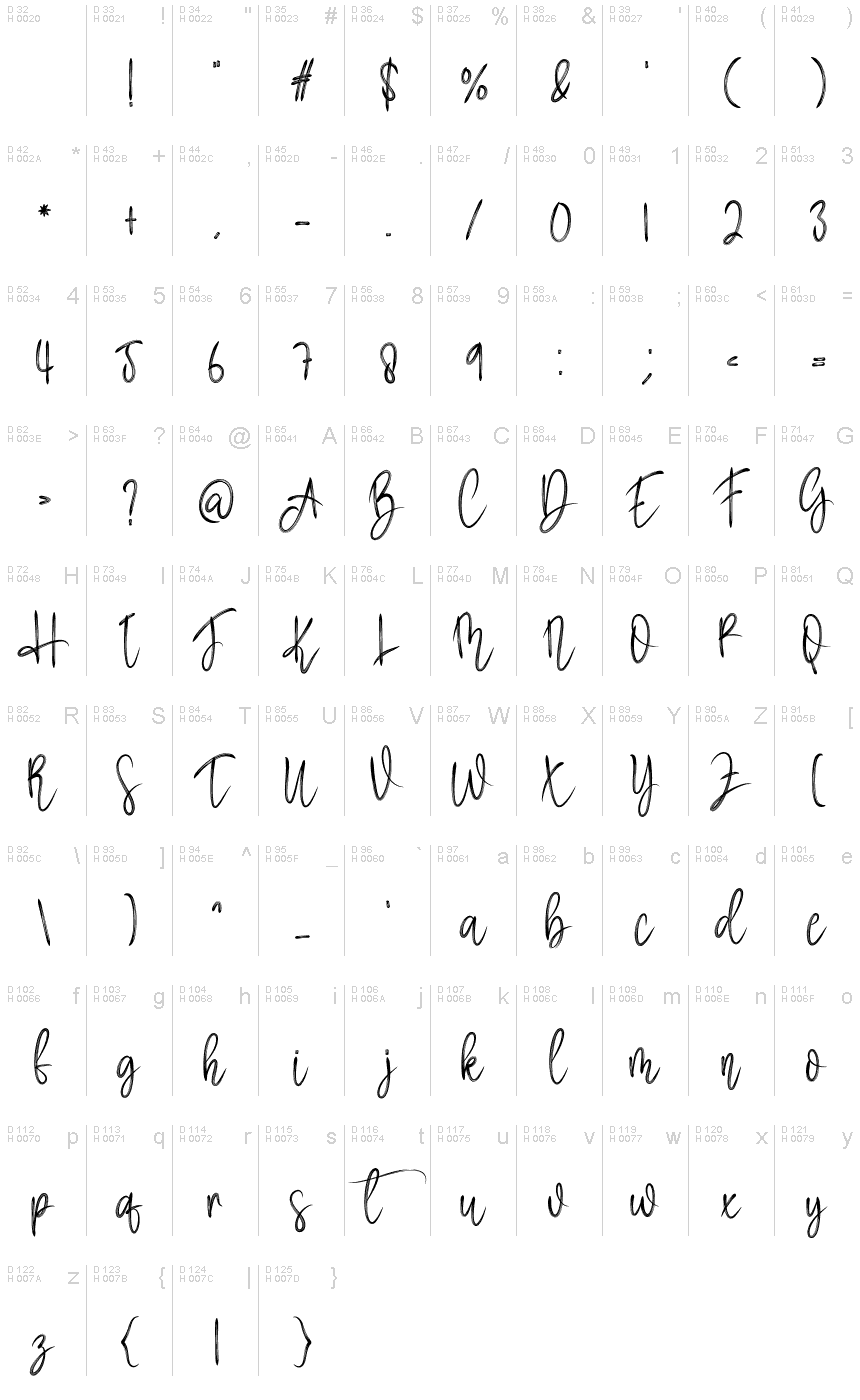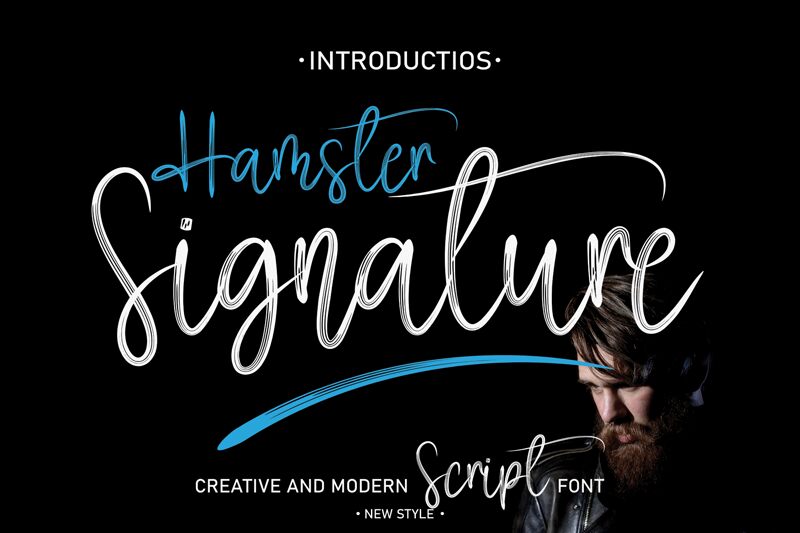
Hamster Signature
Hamster Signature is a light brush font designed by scratchones. Perfect for adding a creative touch to your projects, it's suitable for posters, invitations, logos and more! Get creative with this signature font and make your work stand out.
the latest style letters are perfect for wall displays, wedding invitations, social media post logos,
advertisements, product packaging, product designs, labels, photography, watermarks, invitations, stationery,
and any project that requires taste handwriting.